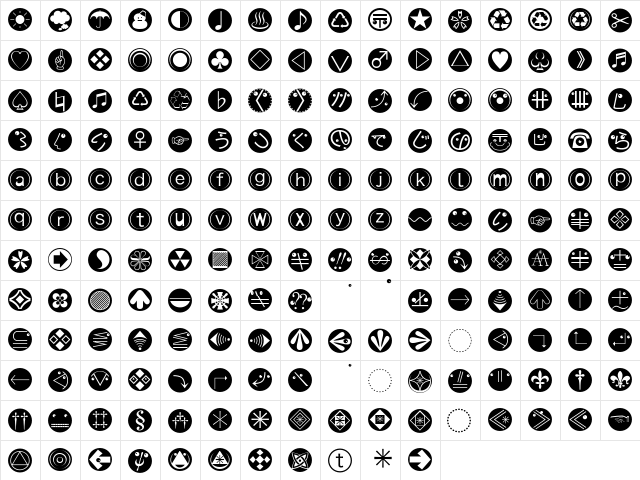
MKBats Regular
Design Context for MKBats Typeface
MKBats takes a measured approach to typography — its balanced proportions and neutral character make it a reliable workhorse for both digital and print work.